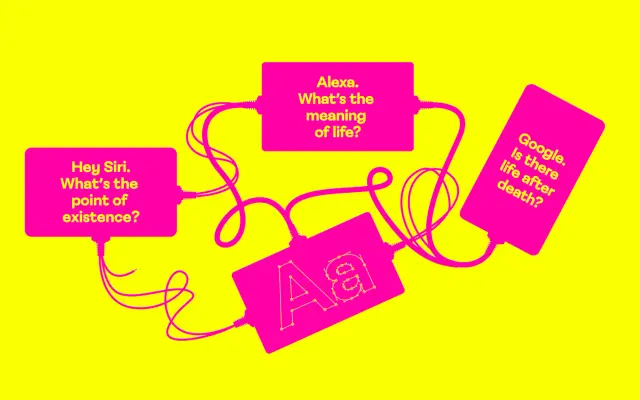
F37 Pythia
A grotesque sans with a wilder streak, ten styles whose unusual, whimsical letterforms give brands a calm base with character.
F37 Pythia presents as a grotesque sans, but several letterforms break with convention to give the family a quirkier, more whimsical voice. F37 frame the design around the Pythia of Delphi and the language of divination. Ten styles run from Light to Bold with matching italics, and F37 pair it on the page with F37 Blanka, F37 Zagma and F37 Lineca. Sits well in editorial, music, hospitality and cultural identity work where you want a workable grotesque with stories to tell.
F37 describe Pythia as on the face of it a grotesque sans, but with unusual, whimsical letterforms that have other ideas. The family is framed around oracles, divination and the Pythia of Delphi. Ten styles across five weights from Light to Bold with matching italics.